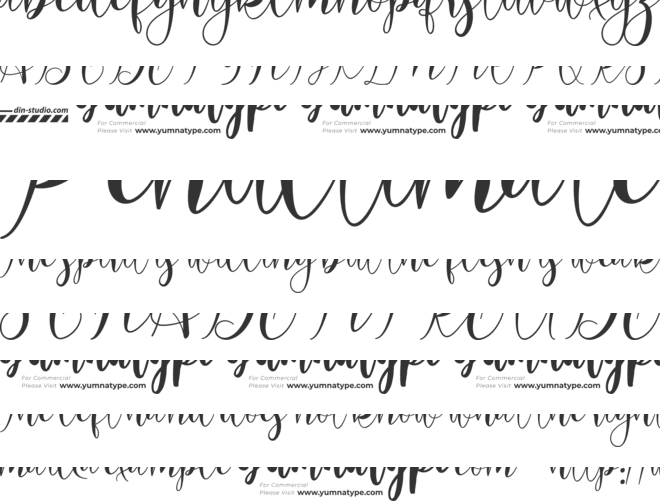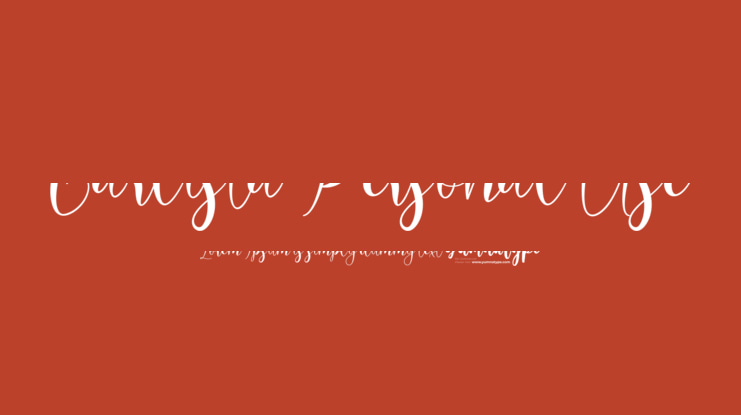
Donis Miftahudin
Say hello to Carlista Script.
Carlista is a beautiful and modern script.
It brings a beautiful and modern typeface that best used for weddings, branding, logotype, and quotes.